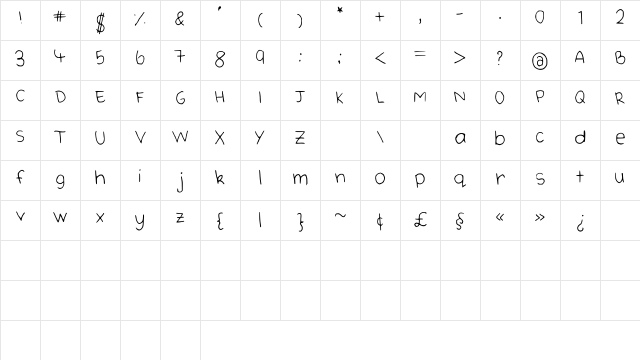
CuteHandWriting Medium
Design Context for CuteHandWriting
CuteHandWriting flows with the natural rhythm of handwritten lettering, making it ideal for designs that call for warmth and personal expression.
Font Pairing: Combine CuteHandWriting with a simple geometric sans for maximum contrast - the tension between flowing curves and clean structure is a classic typographic pairing.
Pro Tip: Use CuteHandWriting for short runs of text - names, titles, or taglines. Extended body copy in script faces tires the eye quickly.